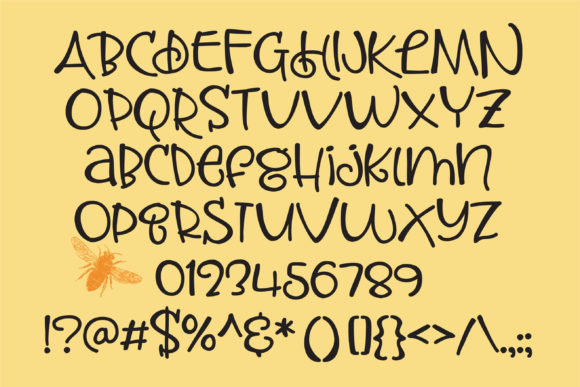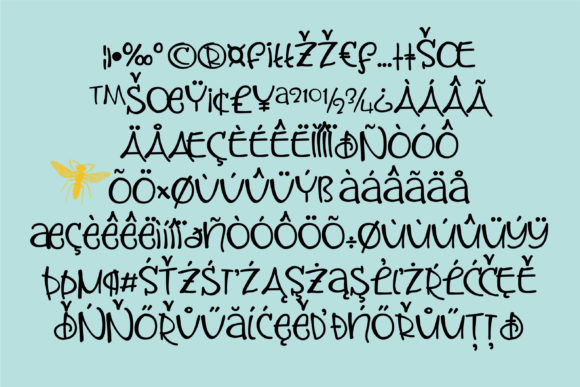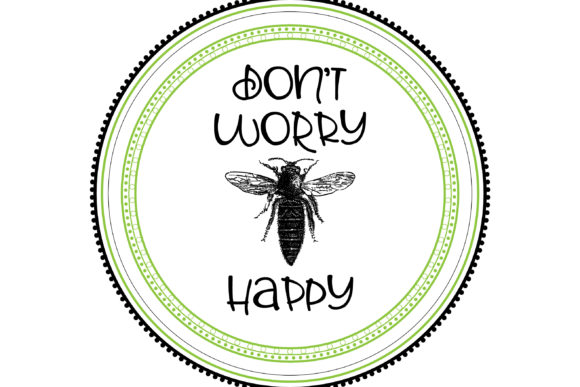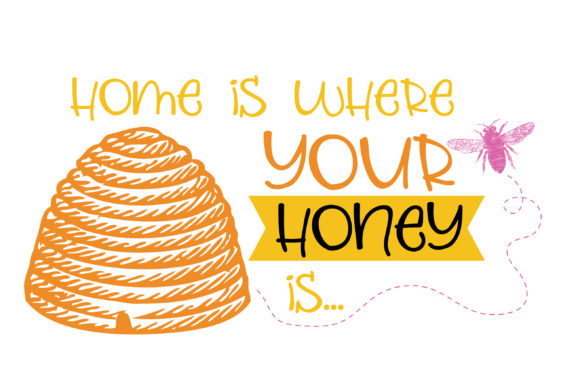
Pretty Fly Font
About Pretty Fly Font
This hand-written font is a dynamic and versatile typeface that offers a unique feature—two interchangeable cases that you can mix up as you type, allowing for a plethora of creative looks. This distinctive characteristic provides a canvas for experimentation and artistic expression, enabling designers to achieve diverse and visually captivating typographic compositions.
The ability to seamlessly switch between cases as you type adds a layer of flexibility and creativity to your text. This feature is particularly valuable for designers looking to craft designs that go beyond traditional uniformity, allowing them to create dynamic and engaging visual narratives.
Whether you’re working on digital or print projects, this hand-written font with dual cases caters to a wide range of applications. From eye-catching headlines to artistic compositions, the flexibility it offers empowers designers to explore various styles within the same font family, bringing a sense of uniqueness to each project.
In essence, this hand-written font is not just a set of characters; it’s a tool for dynamic and expressive typography. The interplay between cases introduces a level of customization that goes beyond the conventional, providing designers with the means to tailor their text to match the mood, theme, or concept of their projects. This feature transforms the font into a versatile and creative asset, opening up a world of possibilities for those who seek to push the boundaries of typographic design.